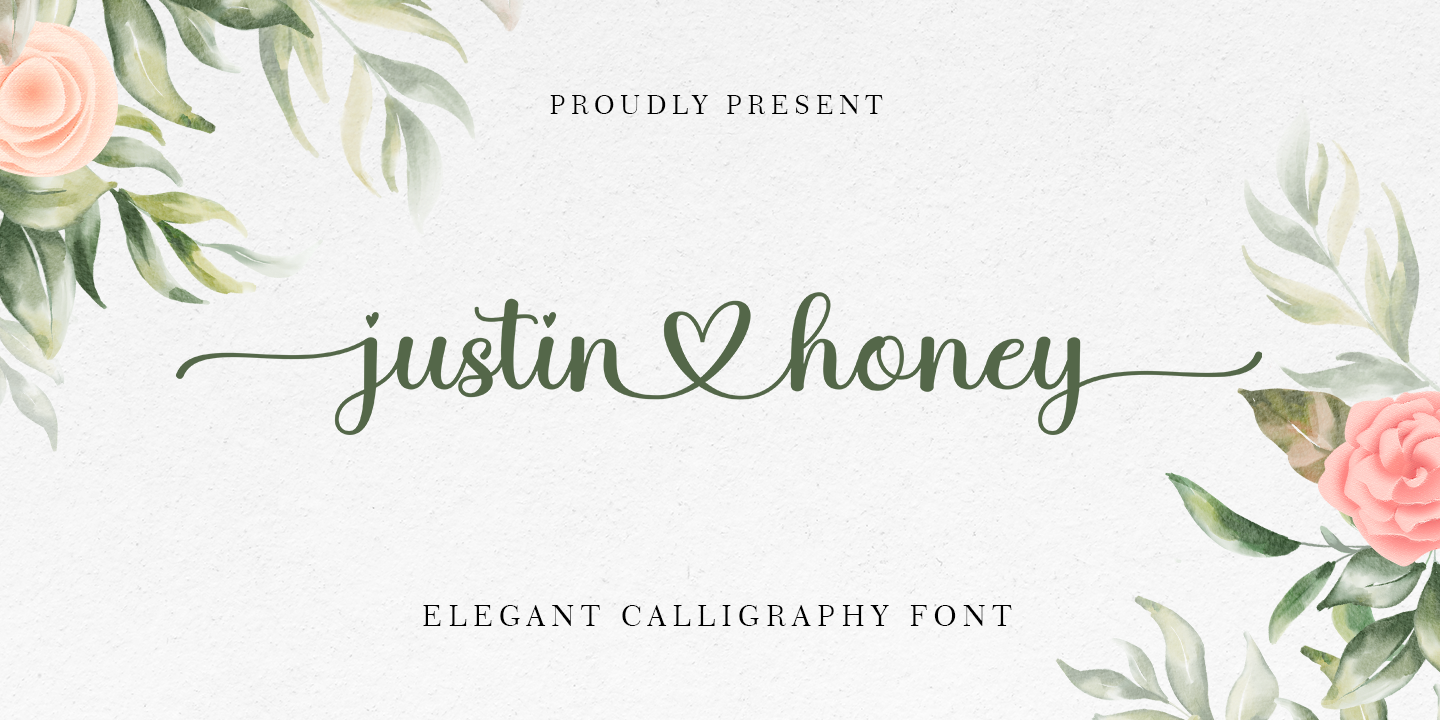
Justin Honey Font is ideal for organic product packaging, artisanal honey labels, natural cosmetics branding, cozy café signage, handmade craft promotions, rustic wedding invitations, farm-to-table restaurant menus, and authentic lifestyle brands. This warm typeface works beautifully in both digital and print applications where natural charm, handcrafted quality, and sweet authenticity are essential for connecting with audiences.
What makes Justin Honey Font exciting is its delightful combination of handcrafted warmth and golden sweetness. The lovingly designed letterforms feature gentle curves, organic flow, and honey-like smoothness that instantly evoke feelings of comfort and natural goodness. Its approachable personality makes it perfect for brands seeking to establish trust and authenticity with health-conscious consumers. The font's ability to convey both artisanal quality and sweet simplicity creates an irresistible homemade appeal.
The Justin Honey Font family encompasses various sweet styles: Regular, Bold, Light, Script, Outline, and Decorative versions with special bee symbols, honeycomb patterns, and nature-inspired ornaments. Each family member preserves the golden essence while offering different levels of visual sweetness. The extensive character set includes multilingual support, organic symbols, decorative flourishes, and special ligatures that enhance natural branding possibilities.
For organic branding, artisanal marketing, or natural product campaigns, Justin Honey Font Free Download delivers the perfect typography solution for creating authentic connections with conscious consumers. Its handcrafted quality and golden character make it an invaluable asset for designers who want to infuse their work with genuine warmth and create designs that taste as sweet as honey.